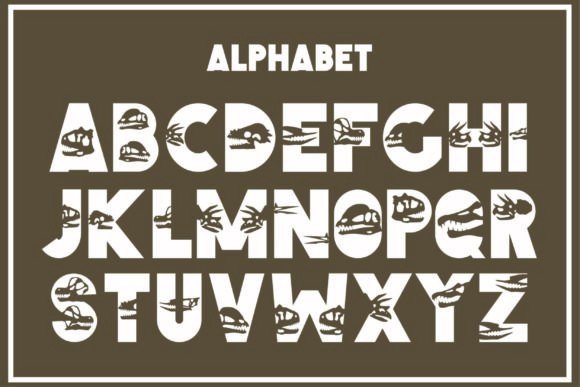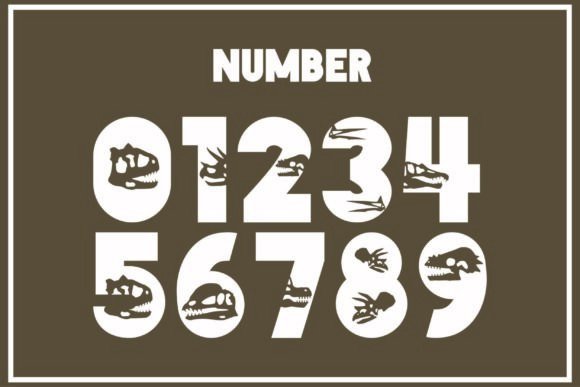
Dino Bone Font: Unleash Your Creativity with Dinosaur Skull Decor
Are you a designer, crafter, or DIY enthusiast looking for a unique and fun font to add some personality to your projects? Look no further than the Dino Bone Font, a decorative font that features interesting dinosaur skulls as ornaments. This original look is sure to appeal to a wide range of crafty ideas, from letterheads and titles to stationery.
What is Dino Bone Font?
Dino Bone Font is a digital font that showcases a collection of dinosaur skulls as decorative elements. The font is designed to add a touch of edginess and playfulness to any design project. Each letter and symbol in the font is carefully crafted to incorporate a dinosaur skull motif, making it a standout choice for designers and crafters who want to add some personality to their work.
Key Features of Dino Bone Font
- Unique Design: The Dino Bone Font features a one-of-a-kind design that combines dinosaur skulls with decorative elements, making it a truly unique font.
- Versatile: The font is suitable for a wide range of design projects, including letterheads, titles, stationery, and more.
- High-Quality: The font is designed with high-quality graphics, ensuring that it looks great in any design project.
Uses for Dino Bone Font
The Dino Bone Font is a versatile font that can be used in a variety of design projects. Here are some ideas to get you started:
- Letterheads and Stationery: Add a touch of personality to your letterheads and stationery with the Dino Bone Font.
- Titles and Headings: Use the font to create eye-catching titles and headings for your designs.
- DIY Projects: The font is perfect for DIY enthusiasts who want to add a personal touch to their projects, such as scrapbooking, card making, and more.
- Graphic Design: The font can be used in graphic design projects, such as brochures, flyers, and posters.
Tips for Using Dino Bone Font
Here are some tips for using the Dino Bone Font in your design projects:
- Experiment with Colors: The font looks great in a variety of colors, so don’t be afraid to experiment and find the perfect color scheme for your design.
- Mix and Match: Mix and match the font with other fonts and design elements to create a unique look.
- Pay Attention to Size: Make sure to adjust the size of the font to fit your design project.
| Font Name | Dino Bone Font |
| Author | PX SHOP |